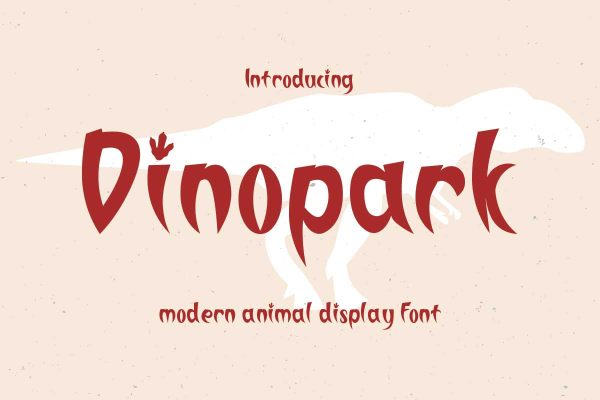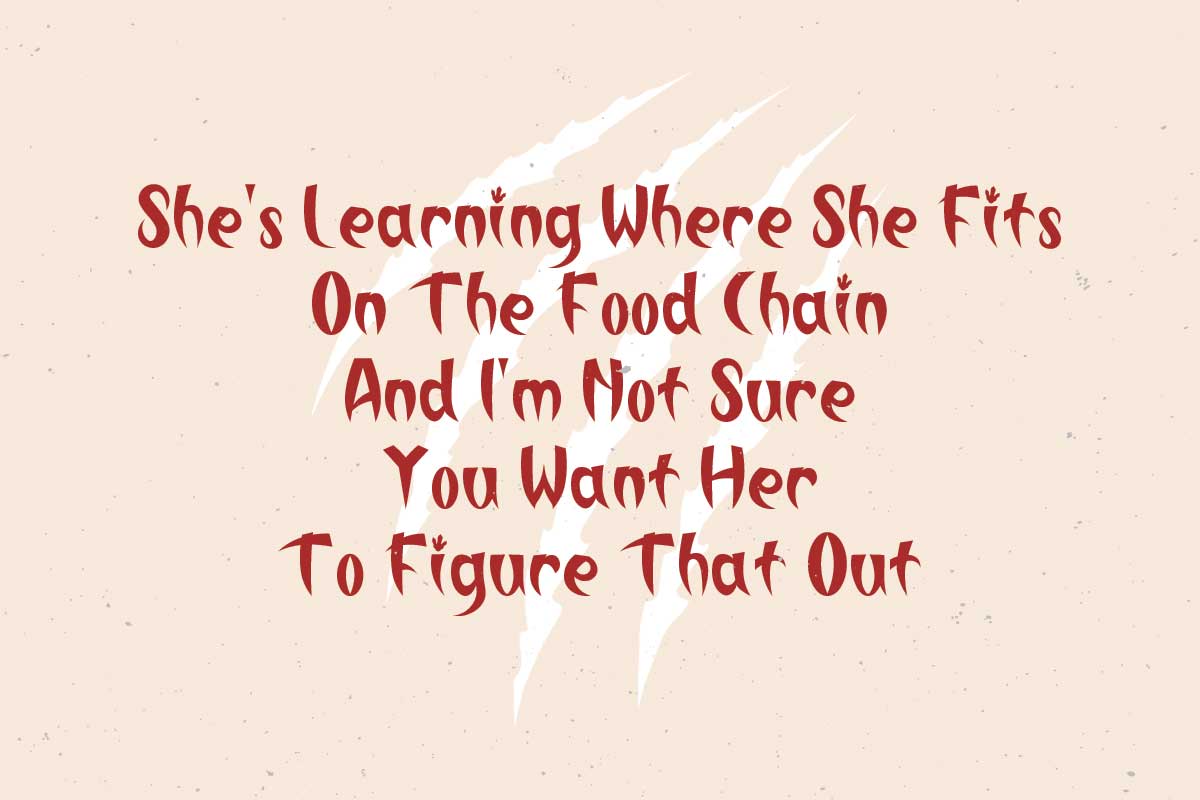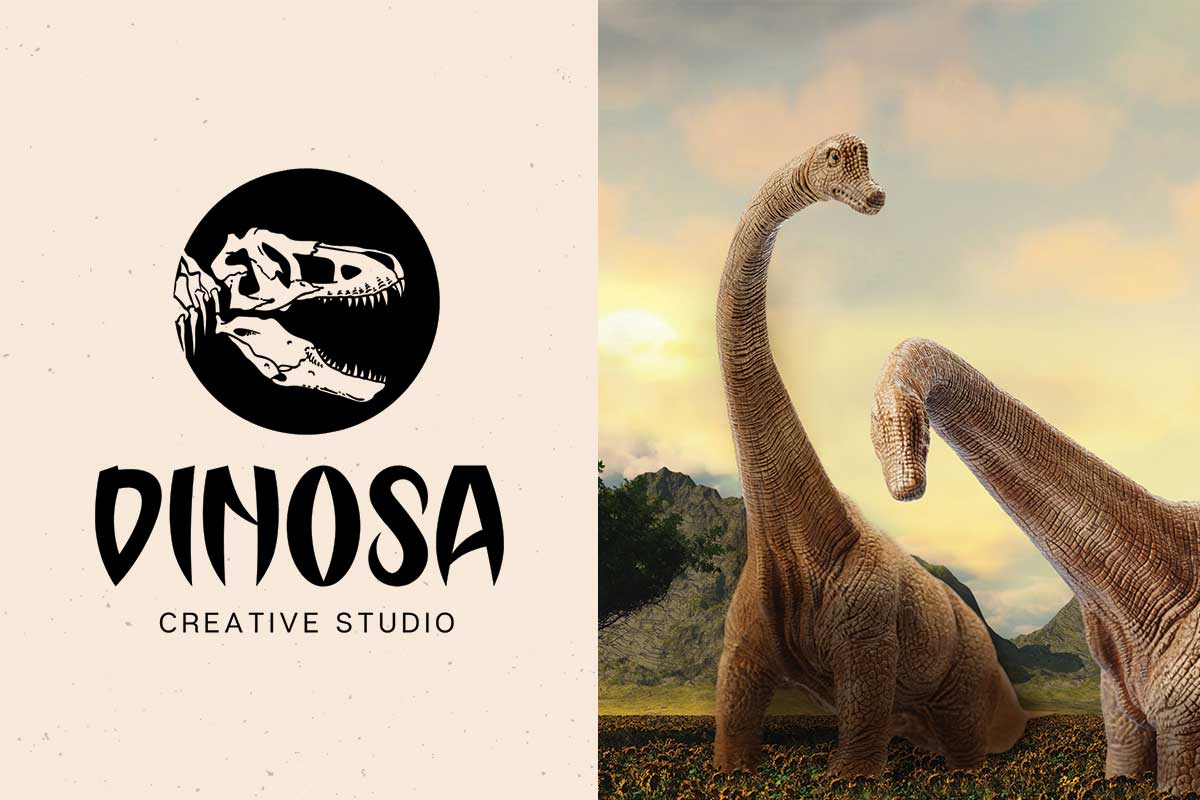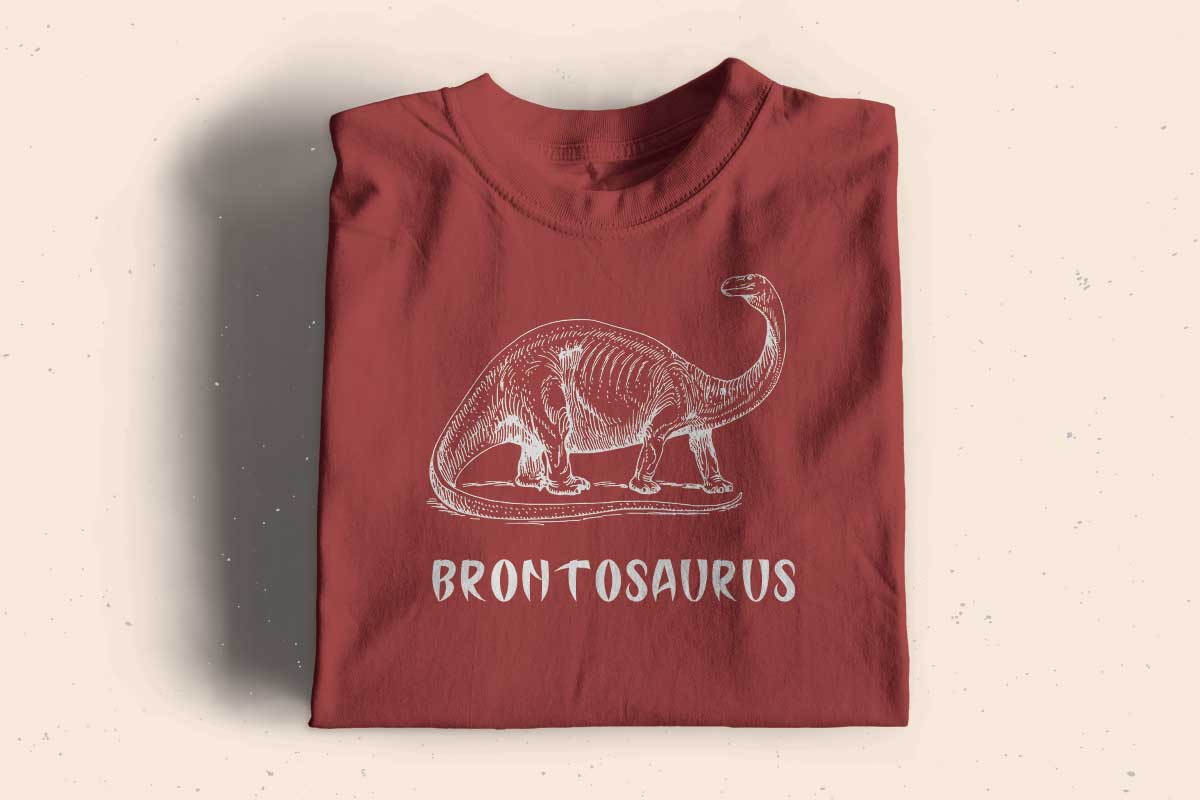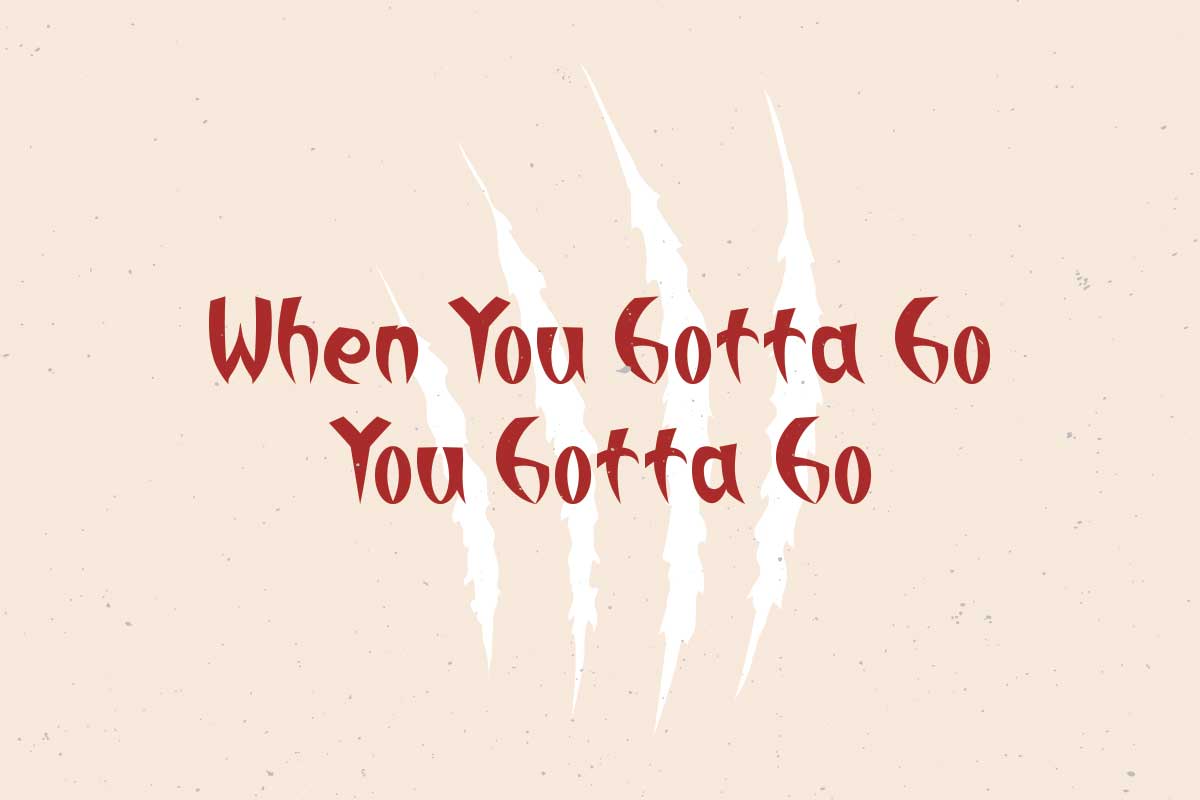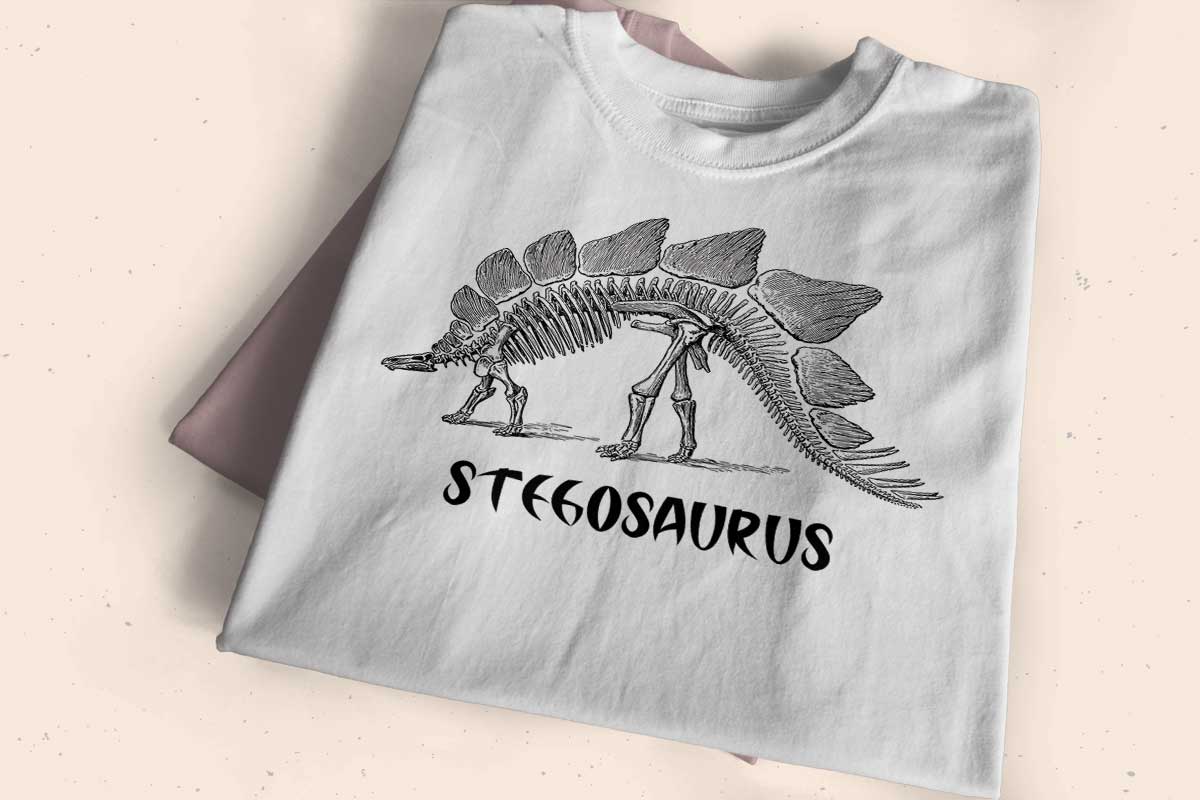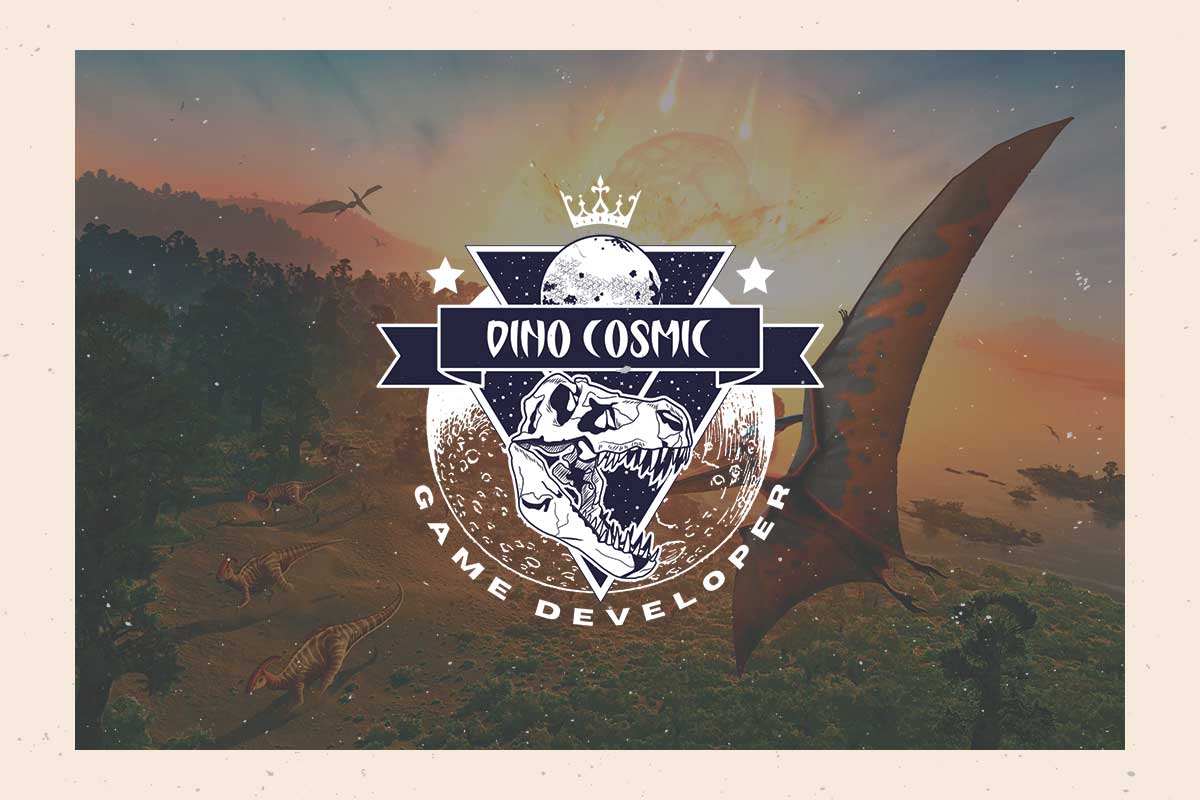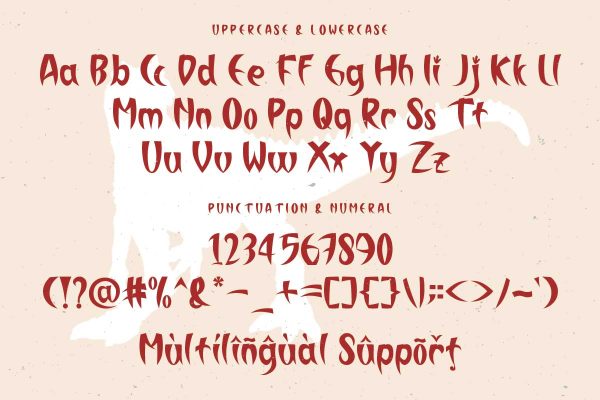
Dinopark Animal Display Font is a uniquely combined typeface concept. This font is perfect for all kinds of cool activities because created with a dinosaur theme. Unique, interesting, and cool letter shapes will leave an unforgettable impression on everyone's mind. You can use this Dinopark Animal Display Font for all printing needs, such as T-shirts, books cover, poster, story books, textbooks, and wall decorations. When placed over an item variety, this font is unique, and the eye-catching typographic design will grab everyone's attention instantly. For this reason, we recommend using this typeface in any product intended for events. Dinopark Animal Display Font can also be used effectively in the digital world. This font is also suitable for individuals and companies who want to create games or those who want to produce a movie or video streaming service for young audiences. Our Decorative fonts collection is compatible for use as Figma fonts, Canva fonts, Freepik Fonts, and Adobe Fonts. They also work as Windows Fonts and Apple Fonts. For your social media needs, you can use and install fonts in our collection of display and decorative typography to use as Instagram Fonts, Facebook Fonts, and Twitter Fonts.